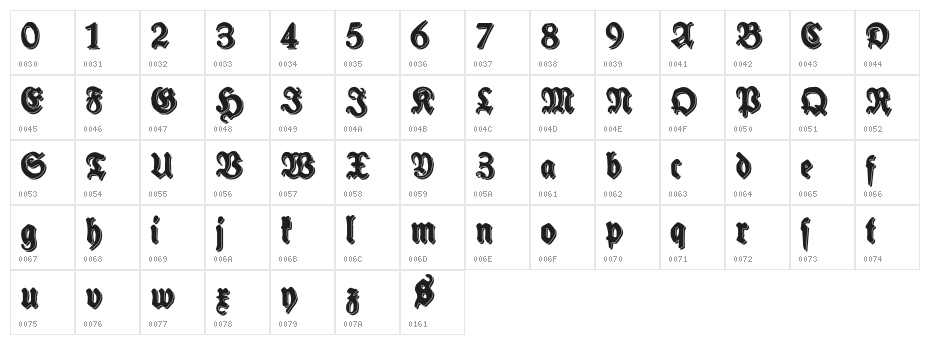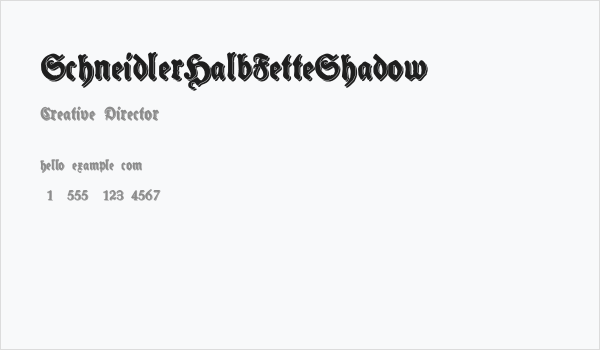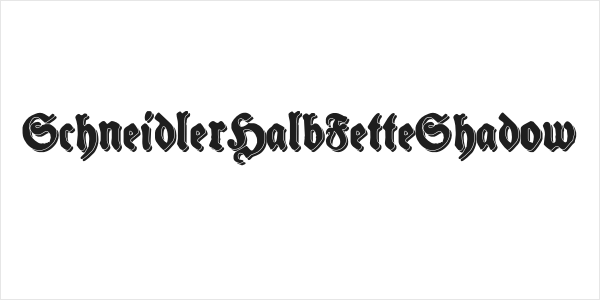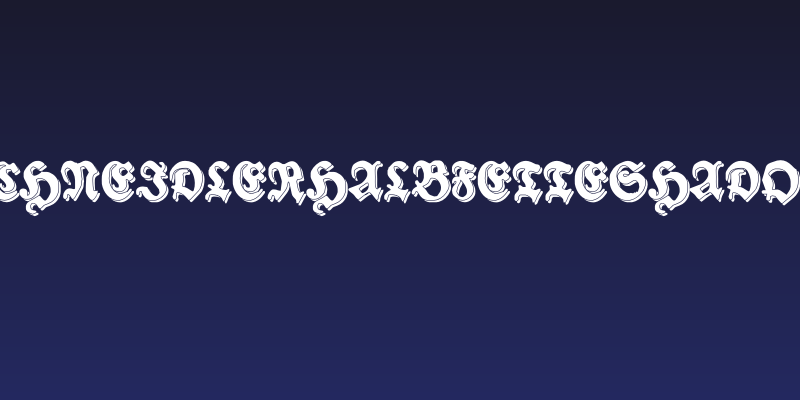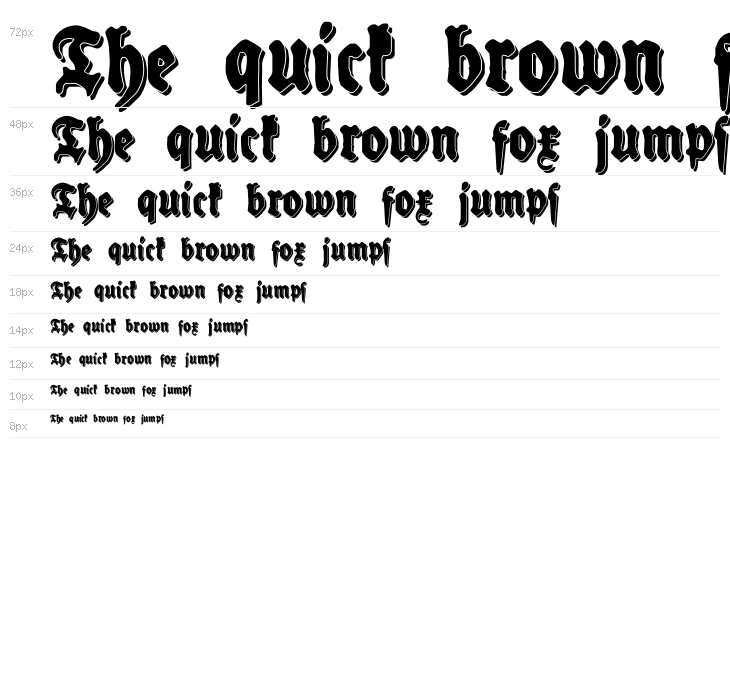
SchneidlerHalbFetteShadow Font
SchneidlerHalbFetteShadow Description
This font features a bold and dramatic style with a shadow effect that gives it a three-dimensional appearance. The characters are reminiscent of traditional blackletter typefaces, with intricate and ornate details that evoke a sense of historical elegance. The uppercase letters are particularly striking, with their sharp angles and decorative flourishes. The lowercase letters maintain the same level of detail, ensuring consistency across the typeface. The numerals are equally bold, making them stand out prominently. This font's unique shadow effect adds depth and complexity, making it suitable for designs that require a touch of sophistication and drama.
| Use Case | Logos, Headlines, Decorative purposes |
| Proposed Projects | Ideal for vintage-themed posters, book covers, branding for luxury products, or any project requiring a historical or dramatic flair. |